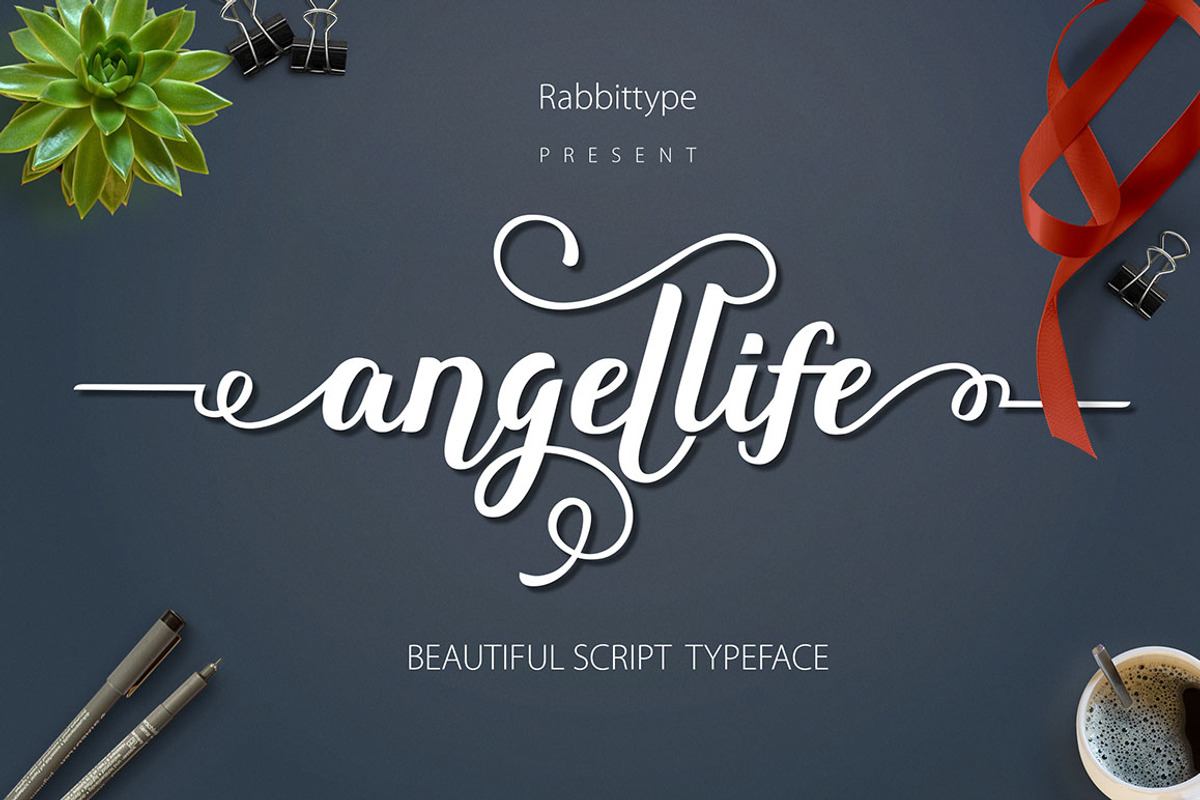
Angellife Beauty Script Font Free Download is an elegant, flowing script typeface designed with beauty and sophistication in mind. Featuring delicate curves and refined strokes, this font is perfect for wedding invitations, beauty branding, logos, fashion, and high-end design projects. Its elegant, handwritten feel adds a personal and luxurious touch to any design.
With its stylish and graceful appearance, Angellife Beauty is ideal for both formal and casual romantic projects, giving your designs a touch of class and elegance.